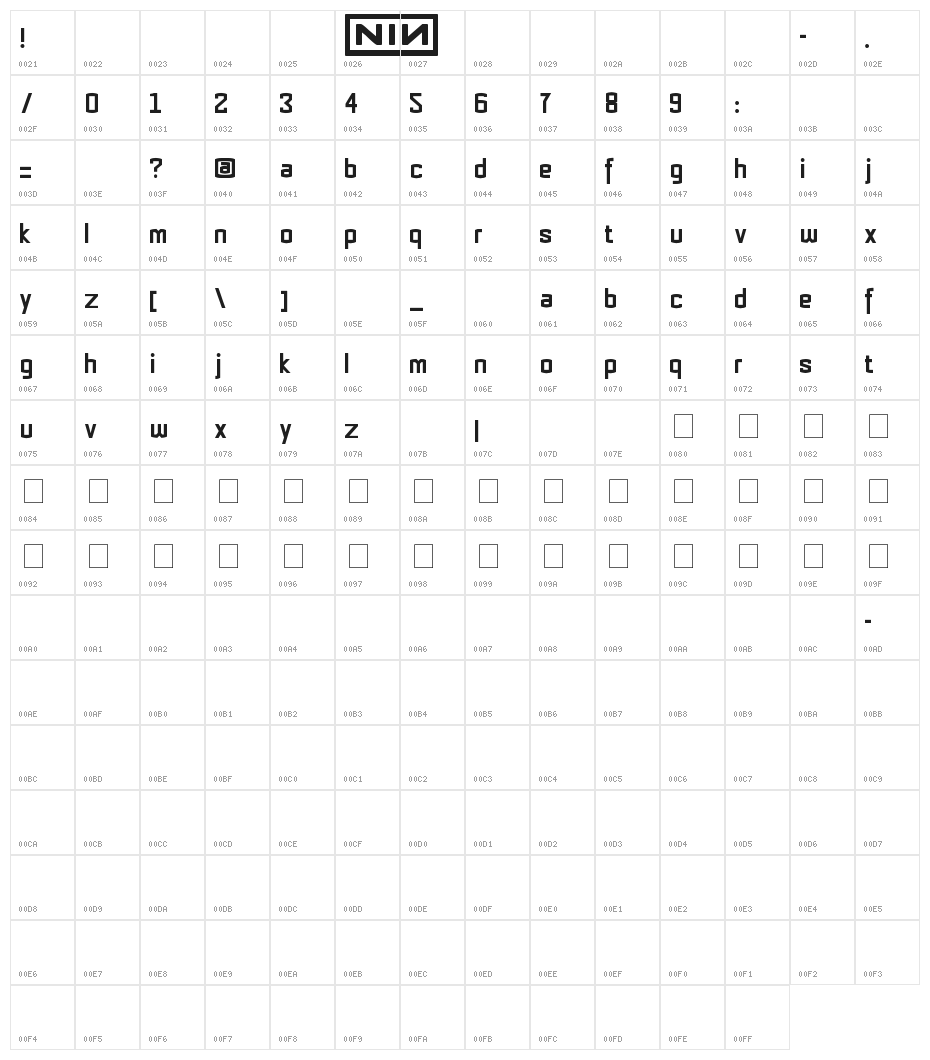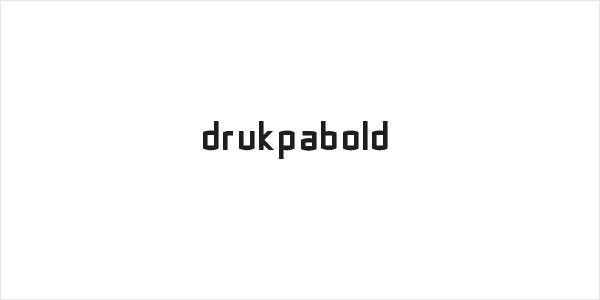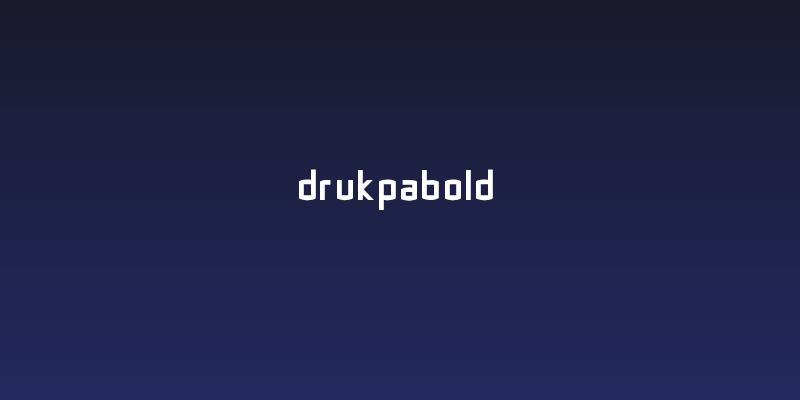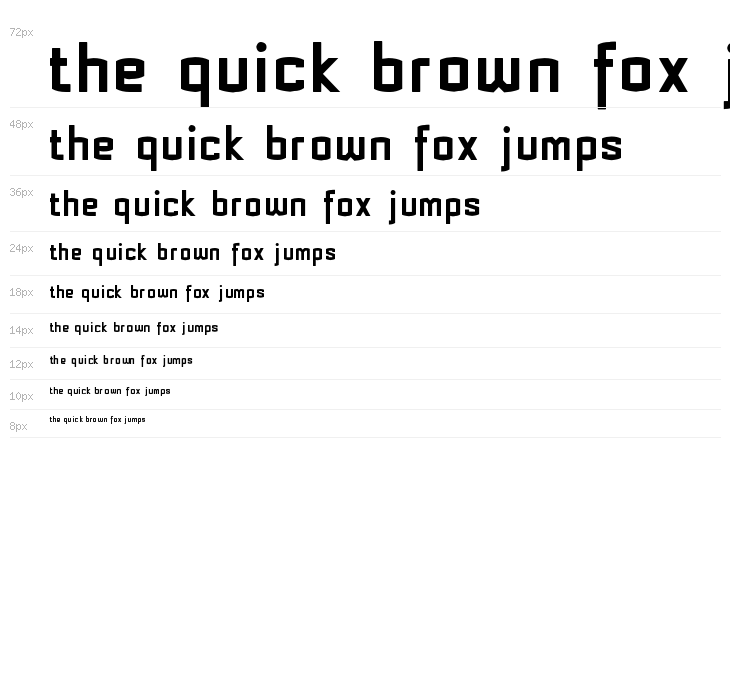
DrukpaBold Font
DrukpaBold Description
This font features a bold and geometric design with a strong presence. The characters are constructed with uniform stroke widths, giving it a modern and structured appearance. The uppercase and lowercase letters maintain a consistent height, contributing to a cohesive look. The numerals are distinct and align well with the overall style, while the special characters complement the font's boldness. Its clean lines and sharp angles make it suitable for impactful and attention-grabbing designs.